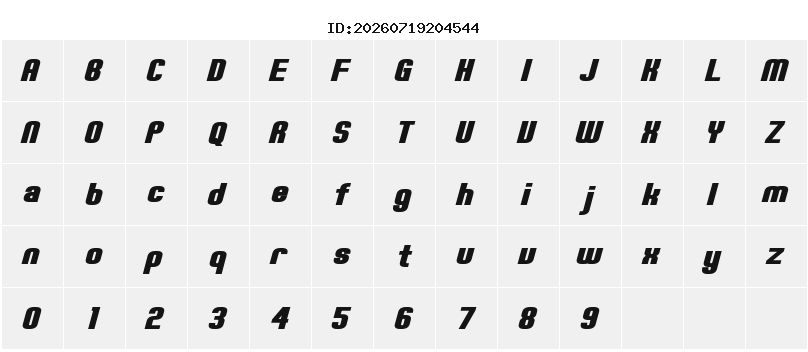
Erte Preview
• Font Name: Erte
• Font ID: Erte Bold Italic:Version 1.10
• Full Font Name: Erte Bold Italic
• Version: Version 1.10 September 7, 2014
• PostScript Name: Erte-BoldItalic
• Designer: Neale Davidson
About Erte.otf
Erte.otf is a modern, elegant sans-serif font designed for ultimate readability and visual harmony. Perfect for branding, headlines, web design, and print materials.